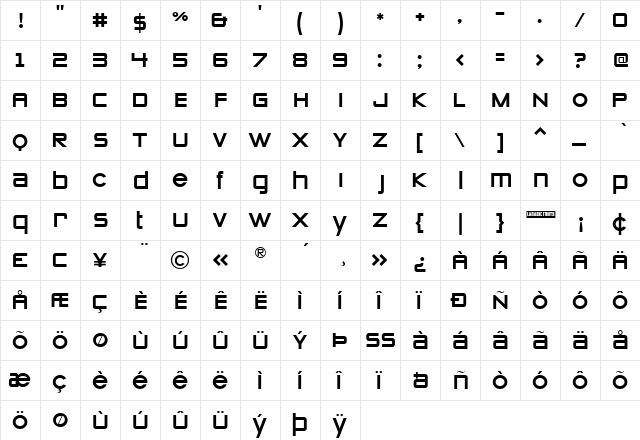
Zeroes One Regular
Design Context for Zeroes One Typeface
Zeroes One offers clean, dependable letterforms without strong stylistic allegiance, making it a practical choice for designers who need flexibility.
Pro Tip: Pair Zeroes One with a font of contrasting weight or personality to build a more expressive typographic hierarchy.